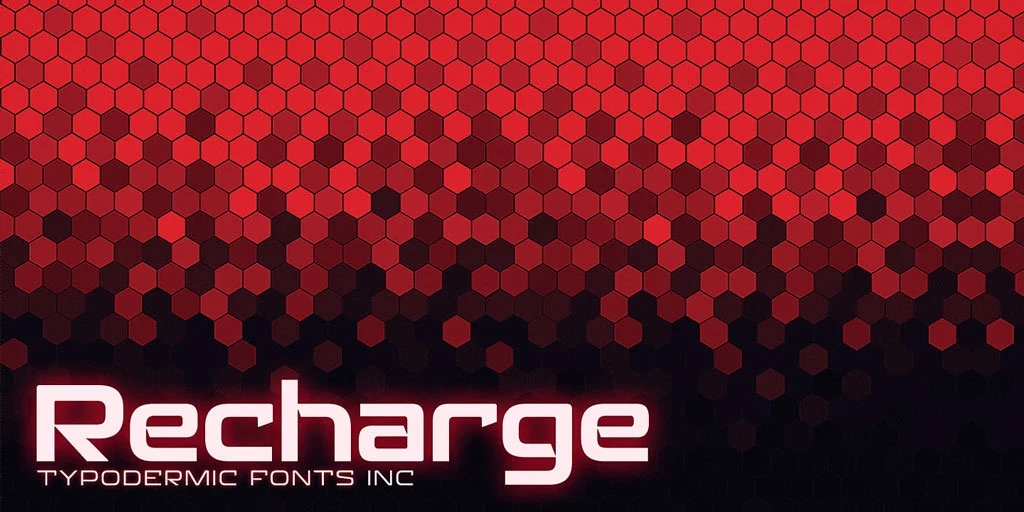
Recharge Font
Recharge Font is perfect for energy drink branding, fitness logos, tech startup identities, motivational graphics, gaming interfaces, electric vehicle branding, wellness product packaging, power tool marketing, battery brand designs, charging station signage, dynamic web headers, and any design project requiring an energetic and revitalizing visual presence.
What makes Recharge Font exciting is its dynamic energy that instantly conveys vitality and forward momentum. The font's modern design captures the essence of renewal and power, making it perfect for brands focused on energy, innovation, and transformation. Its vibrant character resonates with audiences seeking motivation and empowerment, while its contemporary styling ensures relevance in fast-paced markets where standing out is essential.
The Recharge Font family typically includes uppercase and lowercase letters, numerals, punctuation marks, and stylistic variations that amplify its energetic appeal.